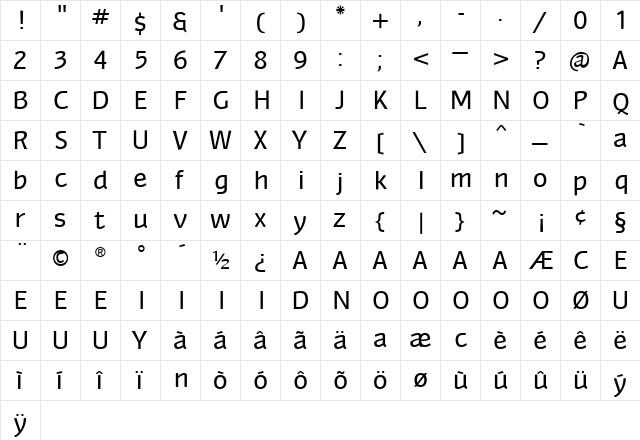
Myndraine Medium
Design Context for Myndraine Typeface
Myndraine takes a measured approach to typography — its balanced proportions and neutral character make it a reliable workhorse for both digital and print work.
Pro Tip: Pair Myndraine with a font of contrasting weight or personality to build a more expressive typographic hierarchy.